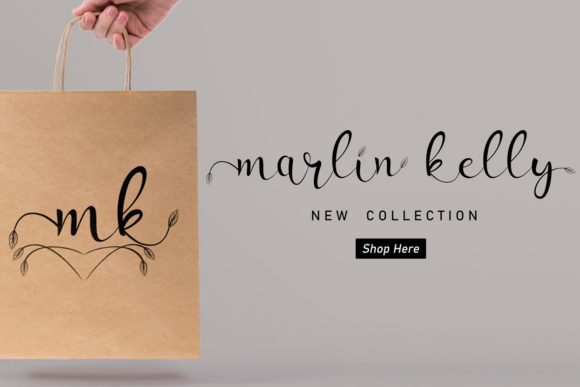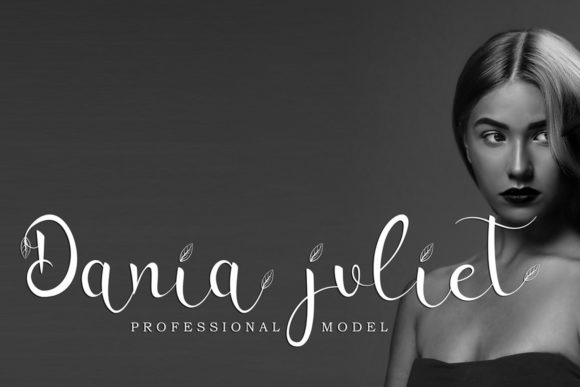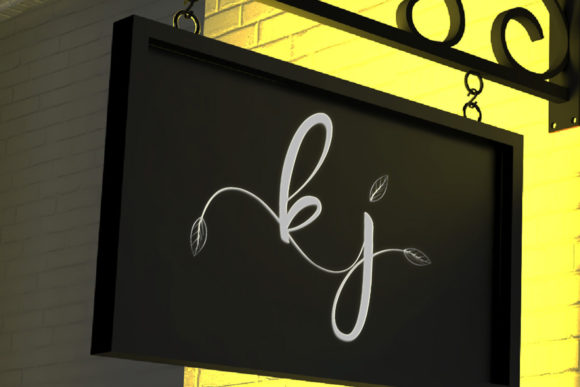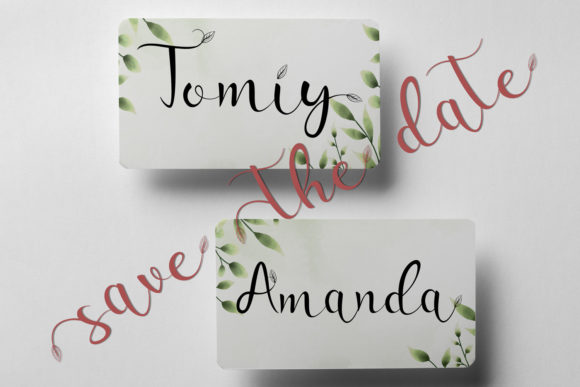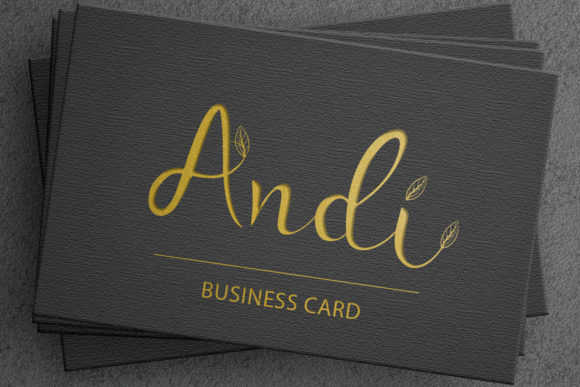
The Perfect Font for Your Creative Masterpiece
Have you ever stared at a blank canvas, trying to bring your creative vision to life, only to be halted by the perfect font? The one that makes your design pop, and tells a story all on its own? For designers and creatives, finding that elusive font can be a game-changer.
Enter Anita Honey Font, a sweet and round lettered script font that’s as elegant as it is versatile. Carefully crafted to bring a touch of sophistication to any project, Anita Honey Font is perfect for Instagram posts, DIY projects, and anything in between. Whether you’re a seasoned pro or a design newbie, this font is sure to turn your creative ideas into stunning works of art.
Anita Honey Font Key Features
- Font Family: A unique, modern script font designed to evoke a sense of elegance and sophistication.
- Character Set: Includes over 500 characters, including uppercase and lowercase letters, numbers, punctuation marks, and special characters.
- Unique Characteristics: Features a distinctive, handwritten feel with subtle flourishes and ligatures, adding a touch of personality to any design.
Designer Review: Anita Honey Font
At first glance, I was drawn to the playful and feminine vibe of the Anita Honey Font. It’s perfect for any project that needs a touch of sweetness and whimsy. ✨ The font’s rounded edges and gentle curves make it an excellent choice for children’s books, food labels, or any other application that requires a friendly and approachable tone.
- ⚠️ The font may not be suitable for formal or professional applications, as its playful nature may come across as immature or unprofessional.
- ⚠️ The font’s rounded edges and gentle curves may not be legible at very small font sizes or in certain screen resolutions.
- ⚠️ The font’s lack of bold weights beyond Extra Bold may limit its use in certain design applications where a more dramatic font weight is required.
In conclusion, the Anita Honey Font is a delightful addition to any designer’s toolkit. While it may have some limitations, its versatility and affordability make it a great choice for designers looking for a playful and friendly font. Overall, I’d give the Anita Honey Font 4 out of 5 stars. ✨
To ensure the best results, use the font in headings or titles to add a touch of elegance and sophistication to your design.
For the best results, use the font in combination with other elegant fonts or as a title font to create a unique and eye-catching design.
Use the font to create a professional and elegant look in your presentations or documents.
The Anita Honey font is perfect for:
Magazine and newspaper headlines
Restaurant and cafe menus
Pair the font with other elegant fonts for a unique look
Use the font in combination with bold or italic text for emphasis
Experiment with different font sizes and colors to create contrast